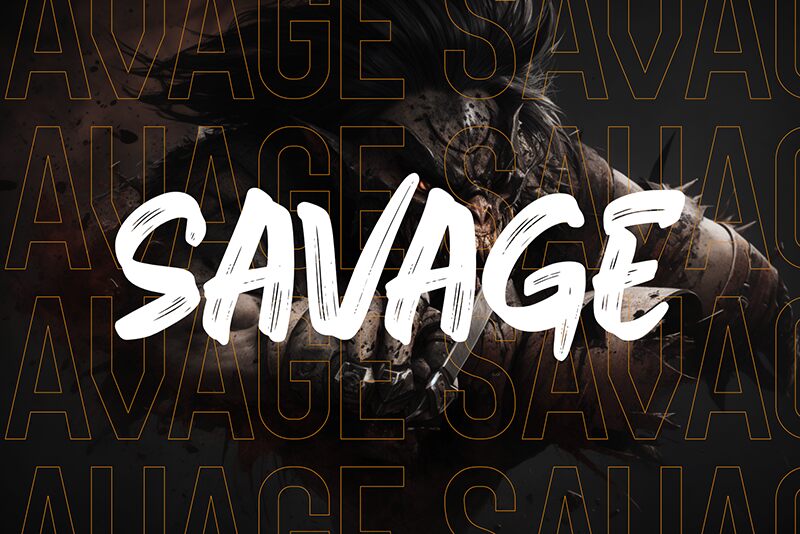
Herison Brushes
Herison Brushes font by DumadiStyle is a bold brush-style typeface with a textured appearance. Each character shows an expressive and modern aesthetic that presents an energetic presence. Inspired by a looseness of freehand drawing, this style stands out with movement and flow.
Using this free brush font, designers can create outstanding movie titles, book covers, music album covers, logo designs, posters, advertising materials and so much more! This versatile typeface can upgrade any typography more personality and creativeness instantly.